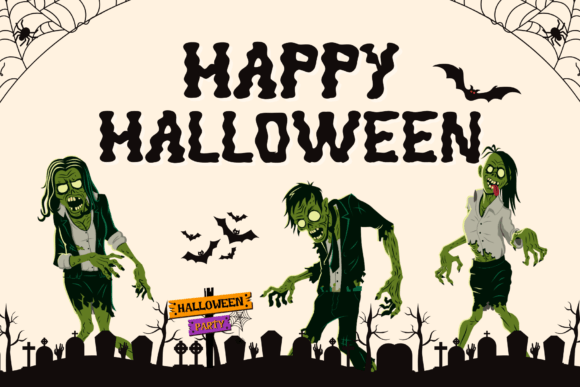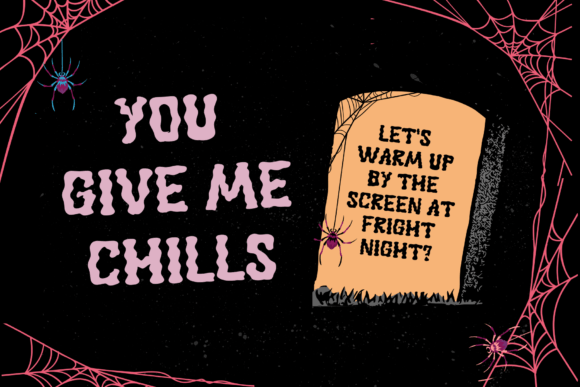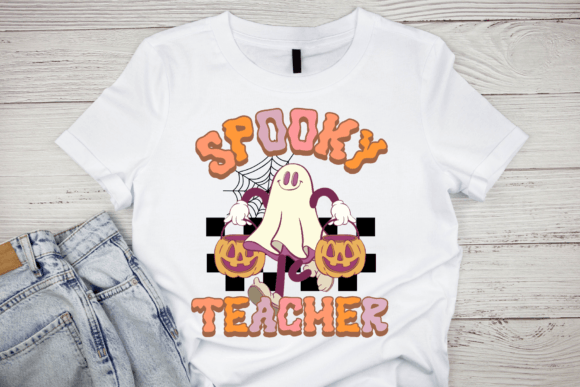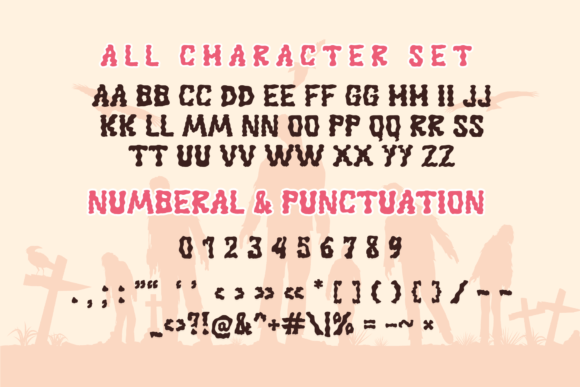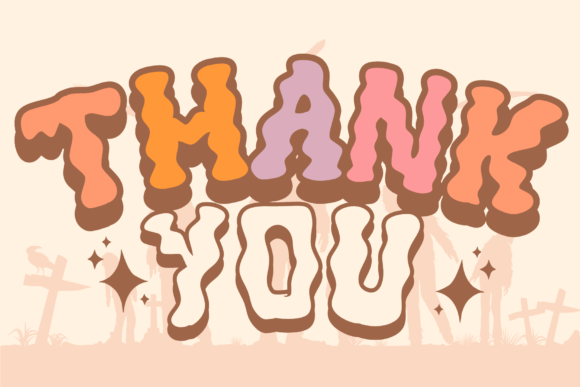
Bubble Zombie Font: The Perfect Addition to Your Halloween Designs
Are you looking for a font that embodies the playful and spooky spirit of Halloween? Look no further than the Bubble Zombie Font! This decorative font is perfect for designers and crafters who want to add a touch of whimsy and authenticity to their projects. In this article, we’ll explore the features and benefits of the Bubble Zombie Font, and how it can elevate your designs to the next level.
What is Bubble Zombie Font?
Bubble Zombie Font is a unique and creative font that is specifically designed for Halloween-themed projects. Its playful and bubbly texture makes it perfect for a wide range of applications, from blog posts and logos to branding, ads, invitations, greeting cards, planners, photo albums, decorations, and more. The font’s distressed and rough texture gives it an authentic and spooky feel that’s sure to capture the attention of your audience.
Features of Bubble Zombie Font
- Playful and Authentic: The Bubble Zombie Font embodies the perfect balance of playfulness and authenticity, making it ideal for Halloween-themed projects.
- Versatile: This font can be used for a wide range of applications, from digital designs to print materials.
- High-Quality: The font is designed with high-quality and clarity in mind, ensuring that it looks great in any size or resolution.
Benefits of Using Bubble Zombie Font
So, why choose the Bubble Zombie Font for your Halloween designs? Here are just a few benefits of using this amazing font:
- Adds a Touch of Whimsy: The Bubble Zombie Font adds a playful and whimsical touch to any design, making it perfect for Halloween-themed projects.
- Creates a Spooky Atmosphere: The font’s distressed and rough texture creates a spooky and eerie atmosphere that’s perfect for Halloween designs.
- Enhances Brand Identity: Using a unique and creative font like Bubble Zombie Font can help enhance your brand identity and make your designs stand out.
- Easy to Read: Despite its playful texture, the Bubble Zombie Font is easy to read and understand, making it perfect for use in a wide range of applications.
Inspiration for Using Bubble Zombie Font
Need some inspiration for using the Bubble Zombie Font? Here are a few ideas to get you started:
- Halloween Invitations: Create spooky and playful invitations for Halloween parties or events.
- Blog Posts: Add a touch of whimsy to your Halloween-themed blog posts with the Bubble Zombie Font.
- Logos and Branding: Use the Bubble Zombie Font to create a unique and memorable logo or brand identity.
- Decorations: Create spooky and playful decorations for your home or office with the Bubble Zombie Font.